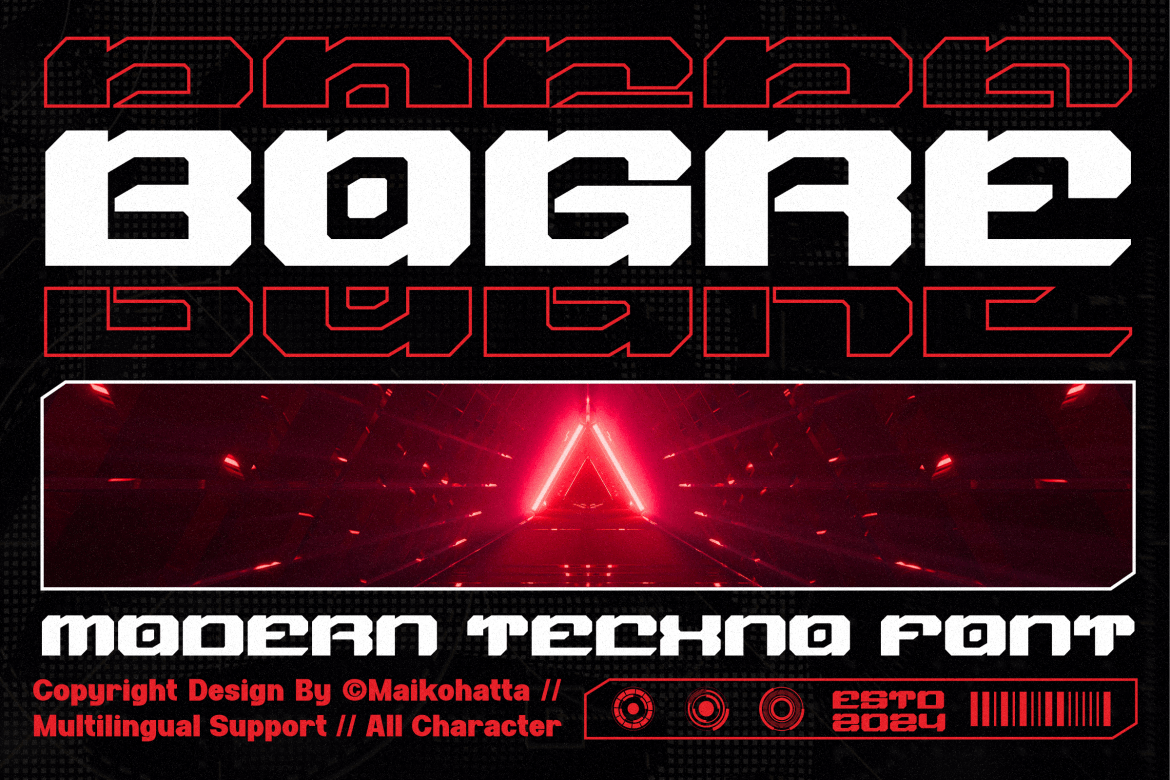
Bogre is a contemporary techno font designed to elevate digital and print projects with its sleek, modern aesthetic. Offering normal spacing and versatility in size, it adapts seamlessly to various design needs. The font enhances visual communication, making it an ideal choice for anyone looking to make a bold statement in their typography. Documentation is included for easy integration.